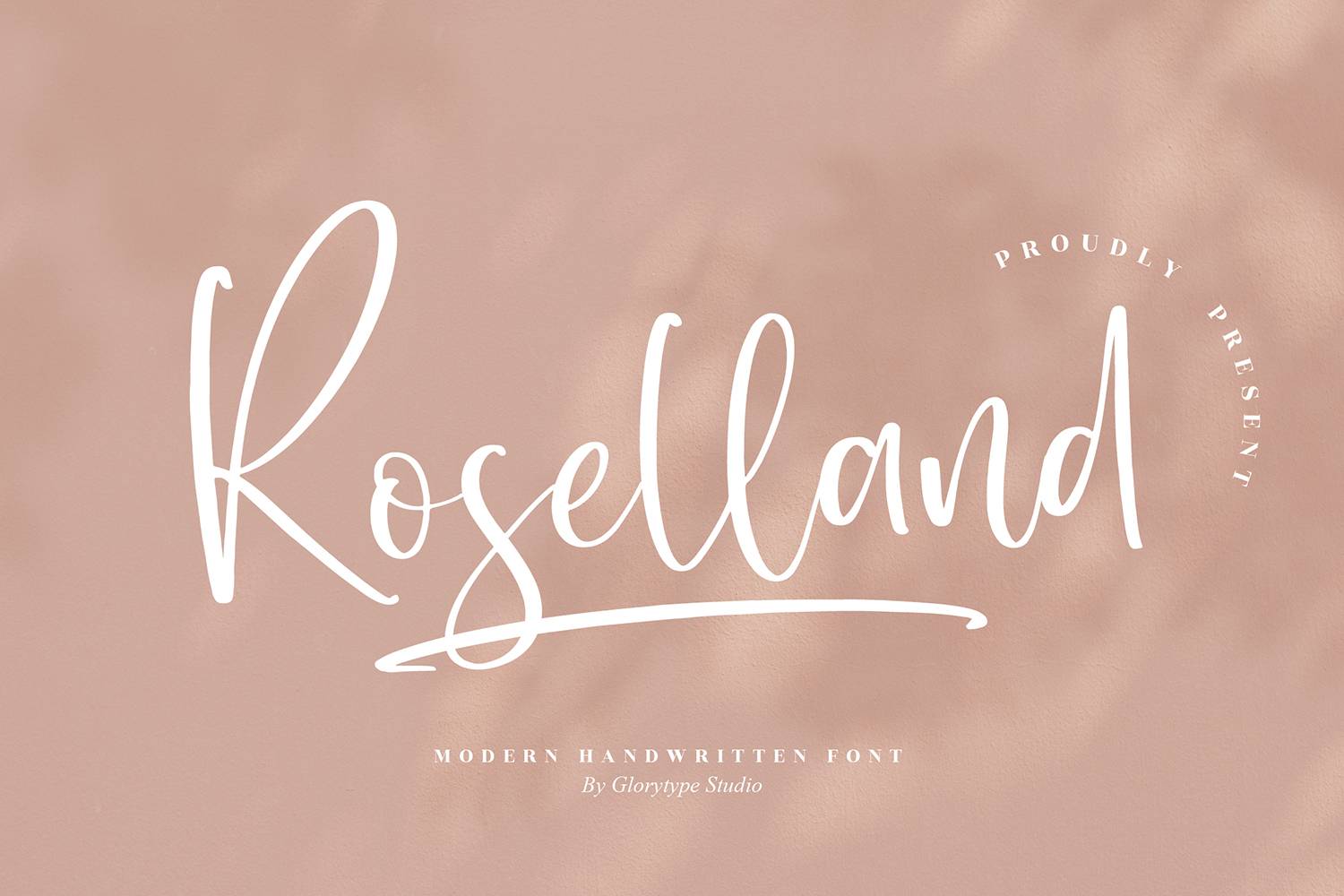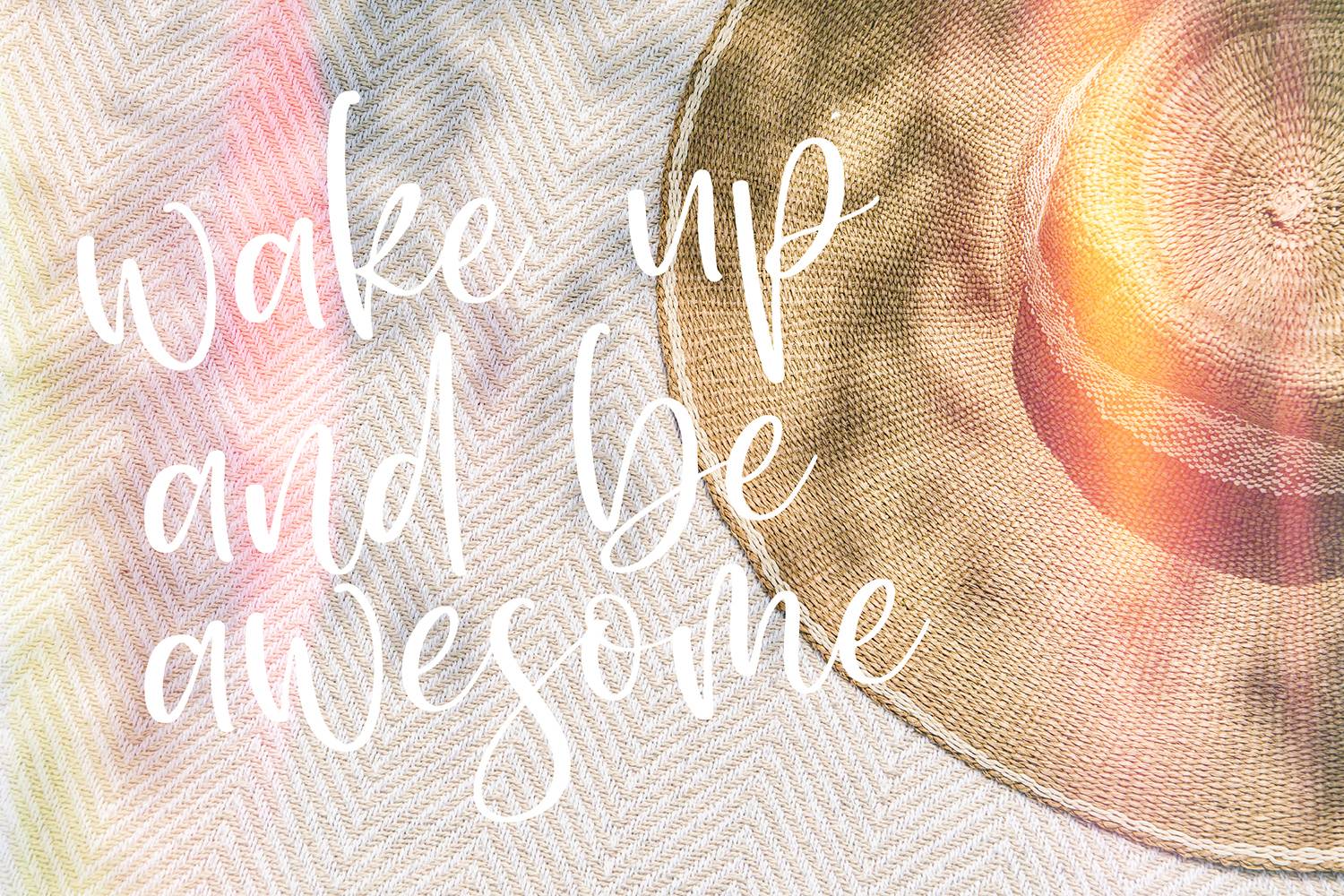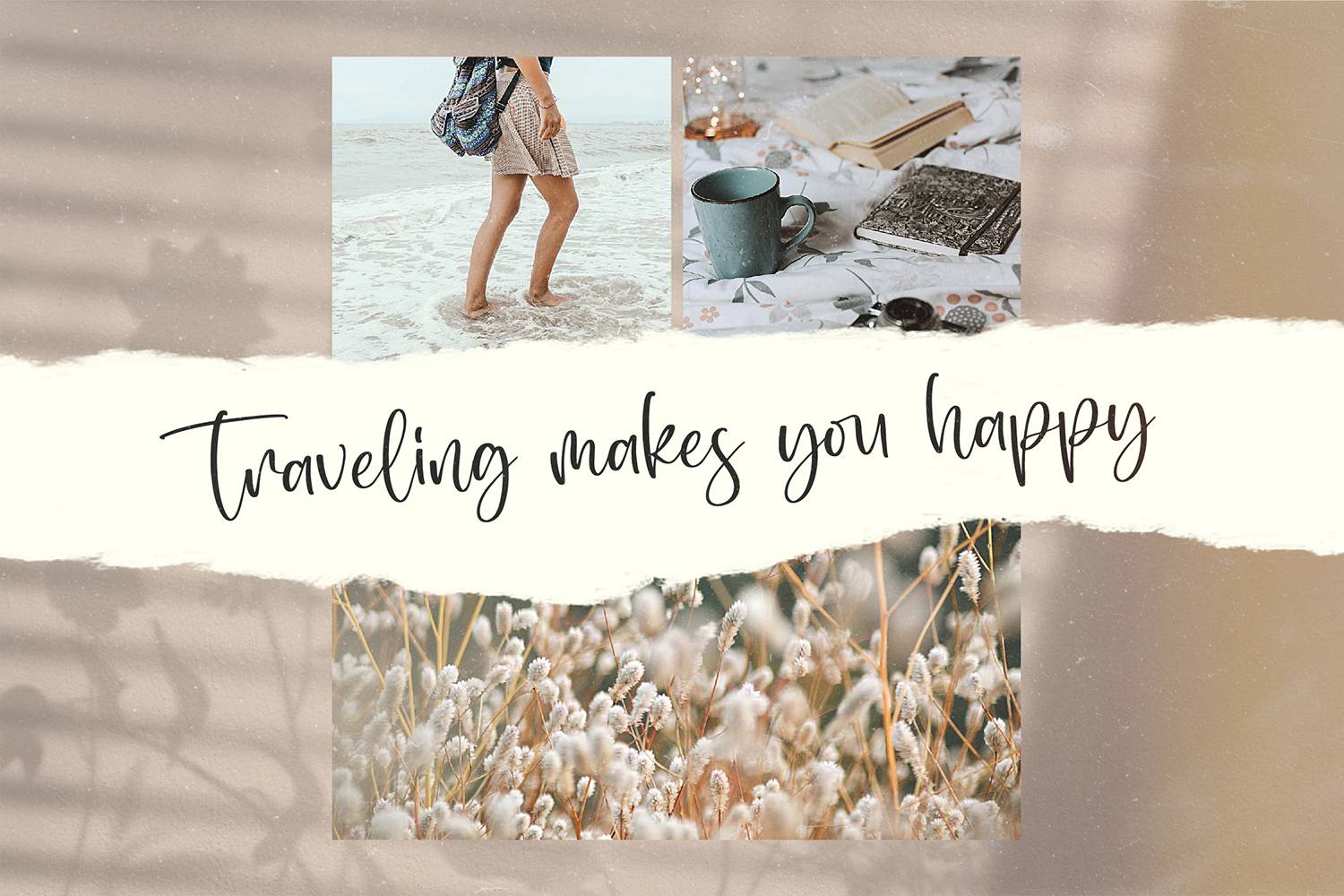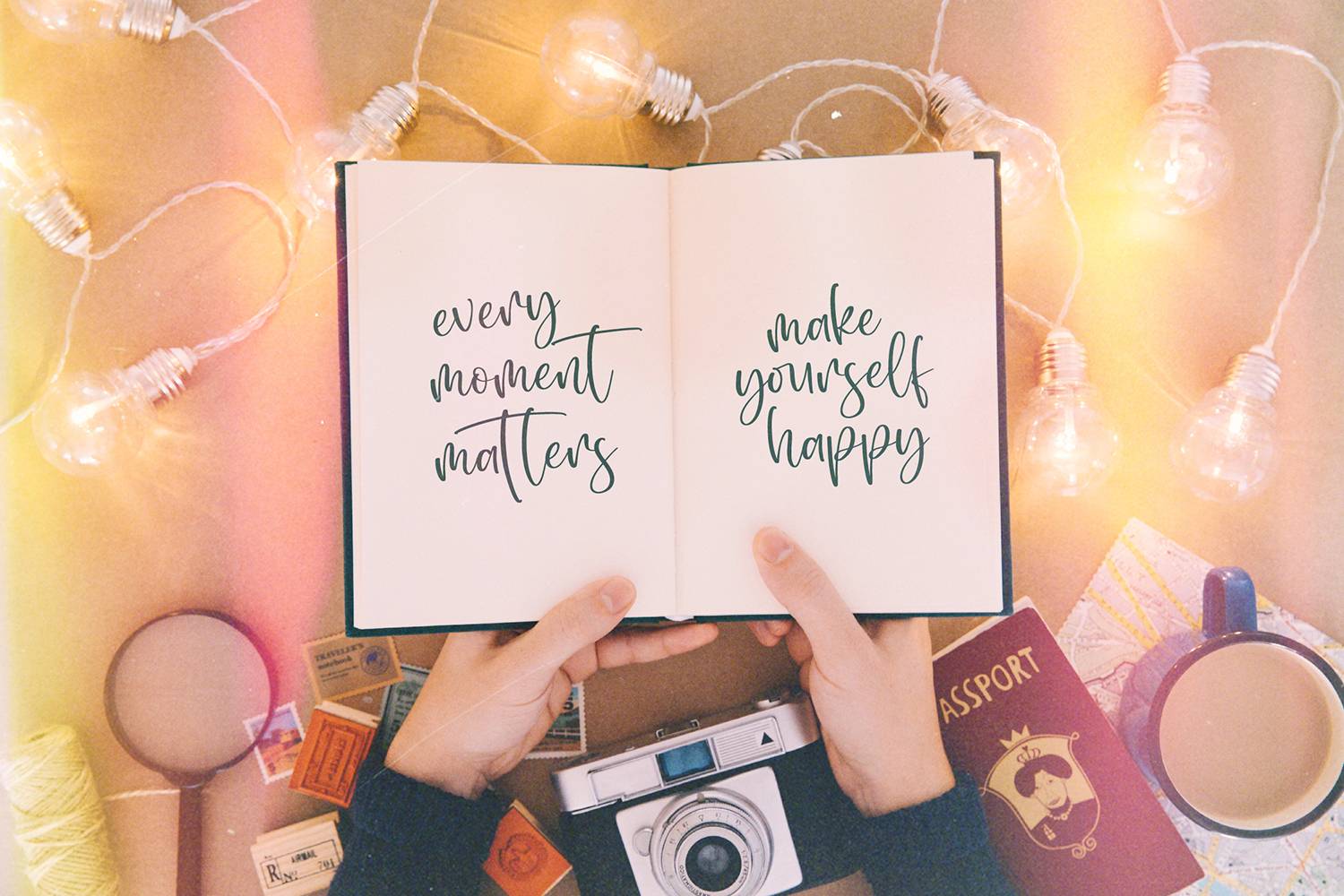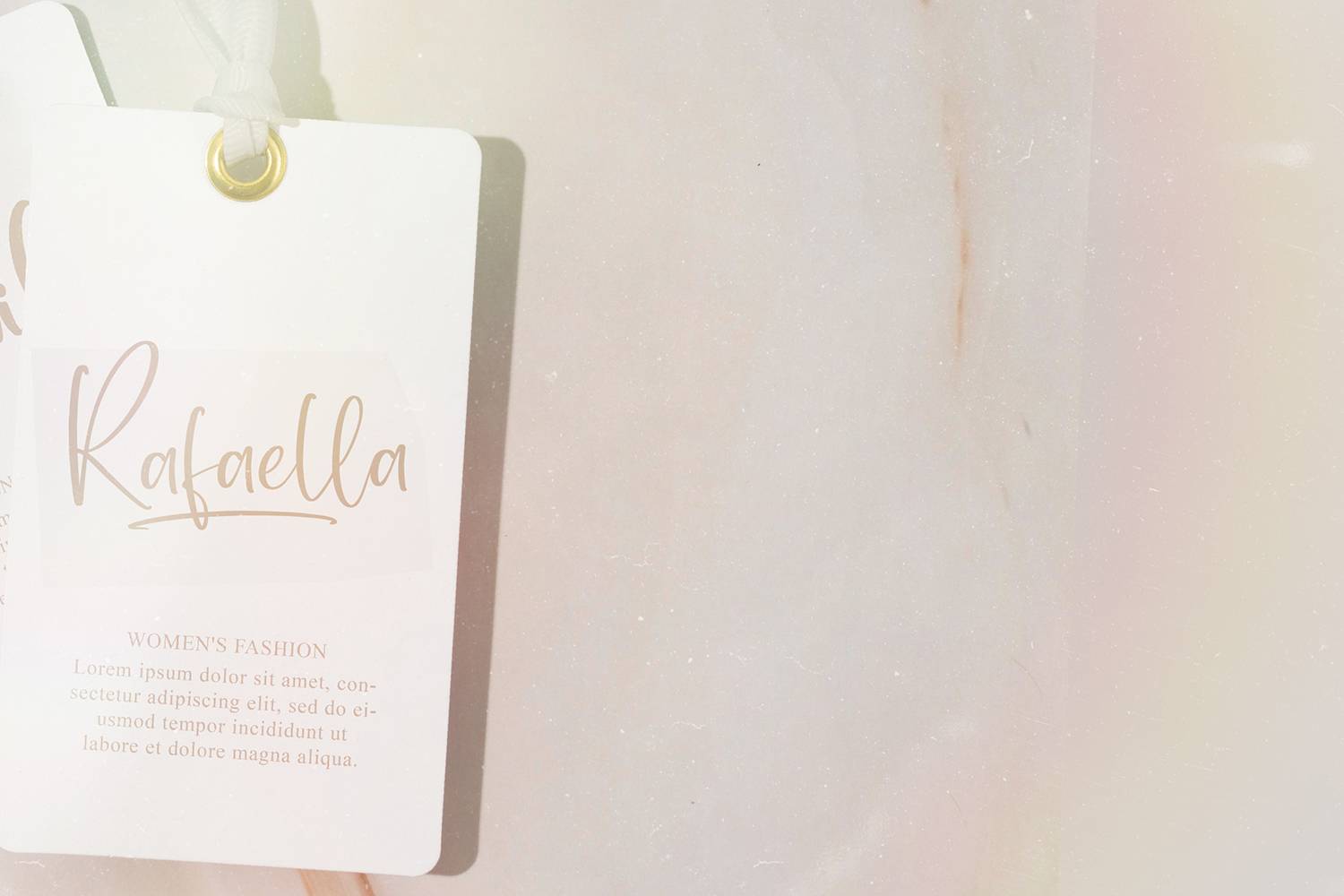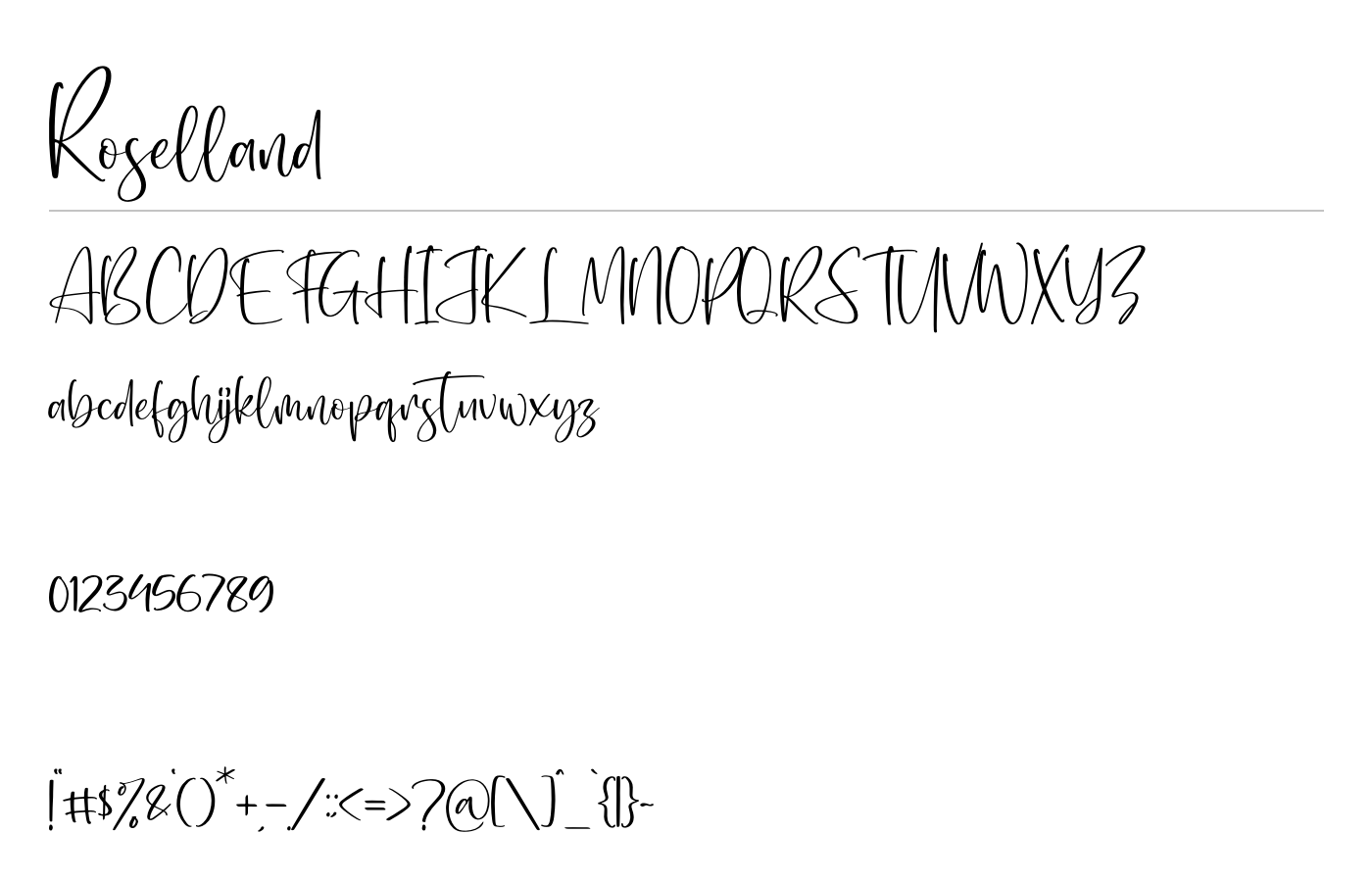
Roselland is a delicate, handwritten script font with a light, airy feel and elegant, flowing letterforms. Its tall, narrow characters and playful yet refined strokes make it ideal for creating a personal, stylish look in invitations, branding, and feminine editorial projects. This font shines best in contexts that call for a cozy, approachable elegance with a touch of modern charm.
Roselland Font
About Roselland Font